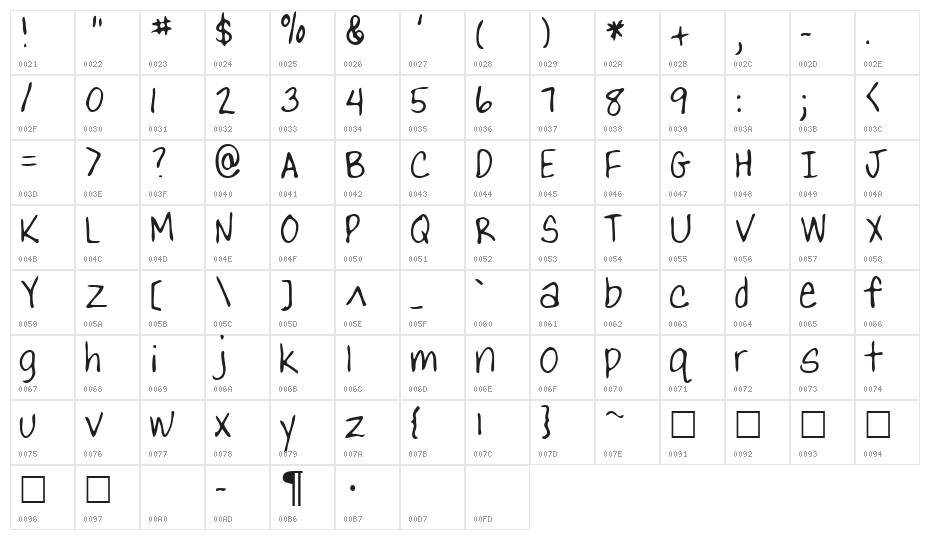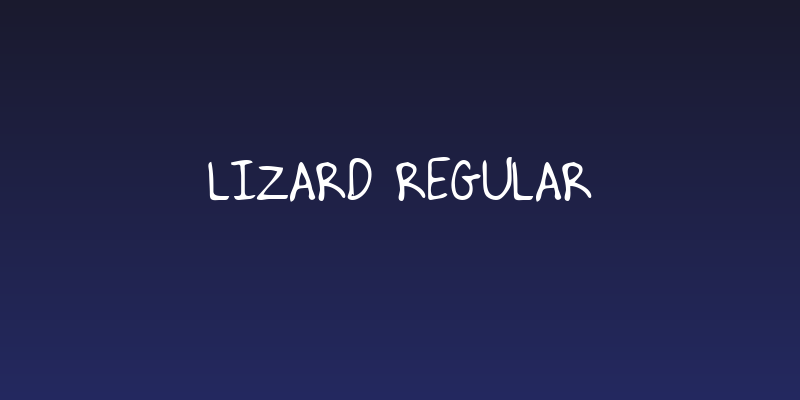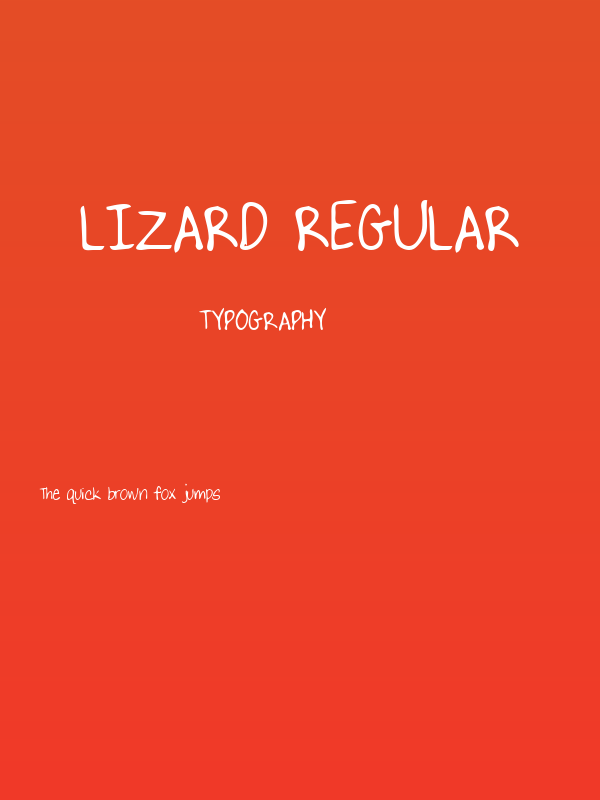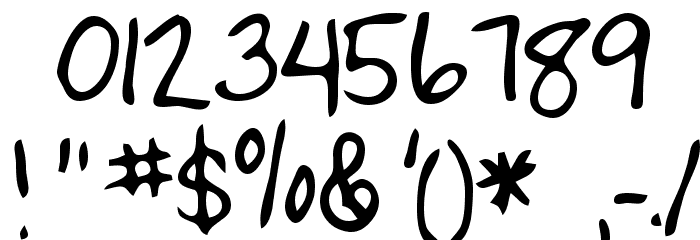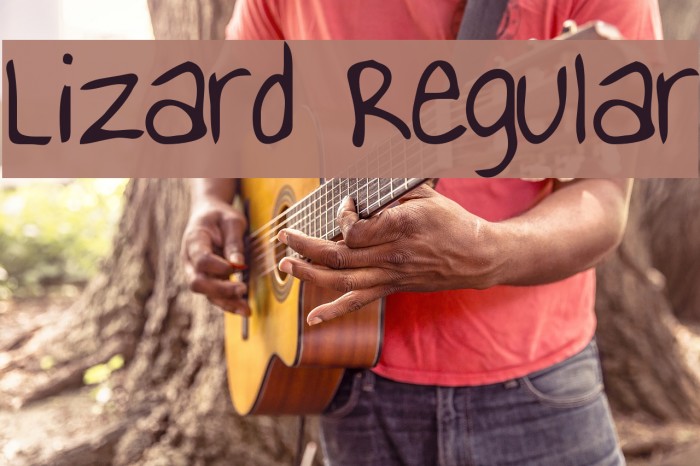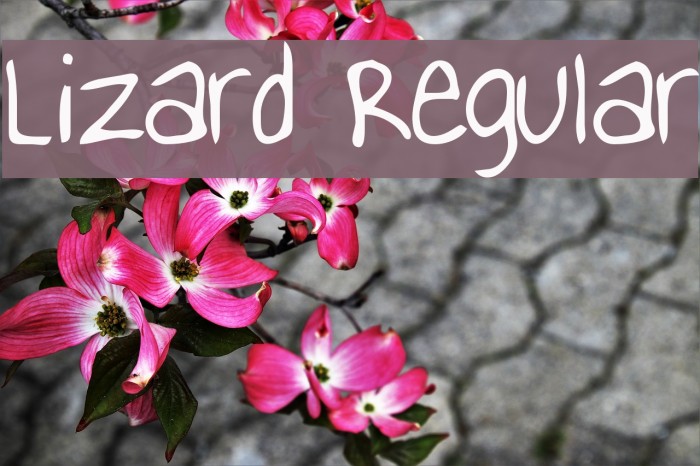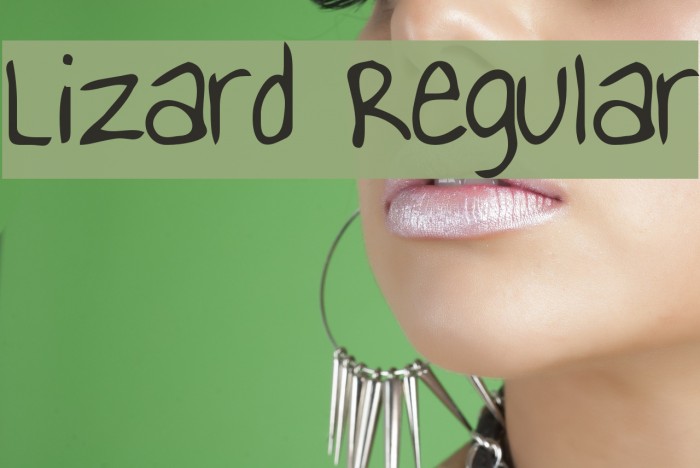
Lizard Regular Font
Lizard Regular Description
This font features a playful and casual handwritten style, characterized by its irregular strokes and organic flow. The letters have a slightly uneven baseline, adding to the informal and approachable feel. The uppercase and lowercase letters maintain a consistent style, with rounded edges and varying stroke widths that give it a dynamic appearance. The numerals and special characters follow the same whimsical design, making it suitable for creative and informal projects. Its unique style captures attention while remaining legible, making it versatile for various design needs.
| Overall Style | Casual |
| Use Case | Headlines, Logos, Informal text |
| Proposed Projects | Ideal for greeting cards, children's books, casual branding, and creative posters. |